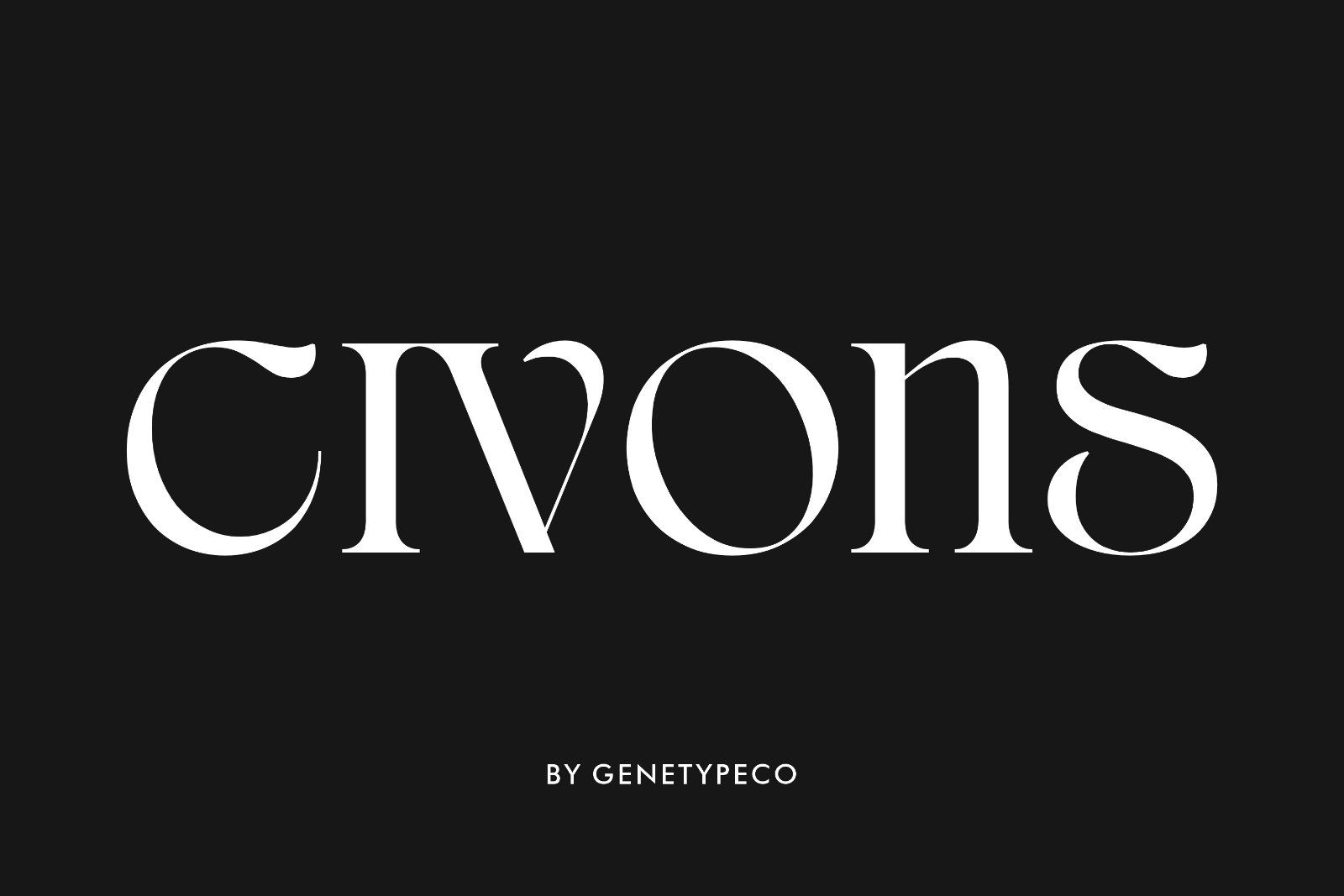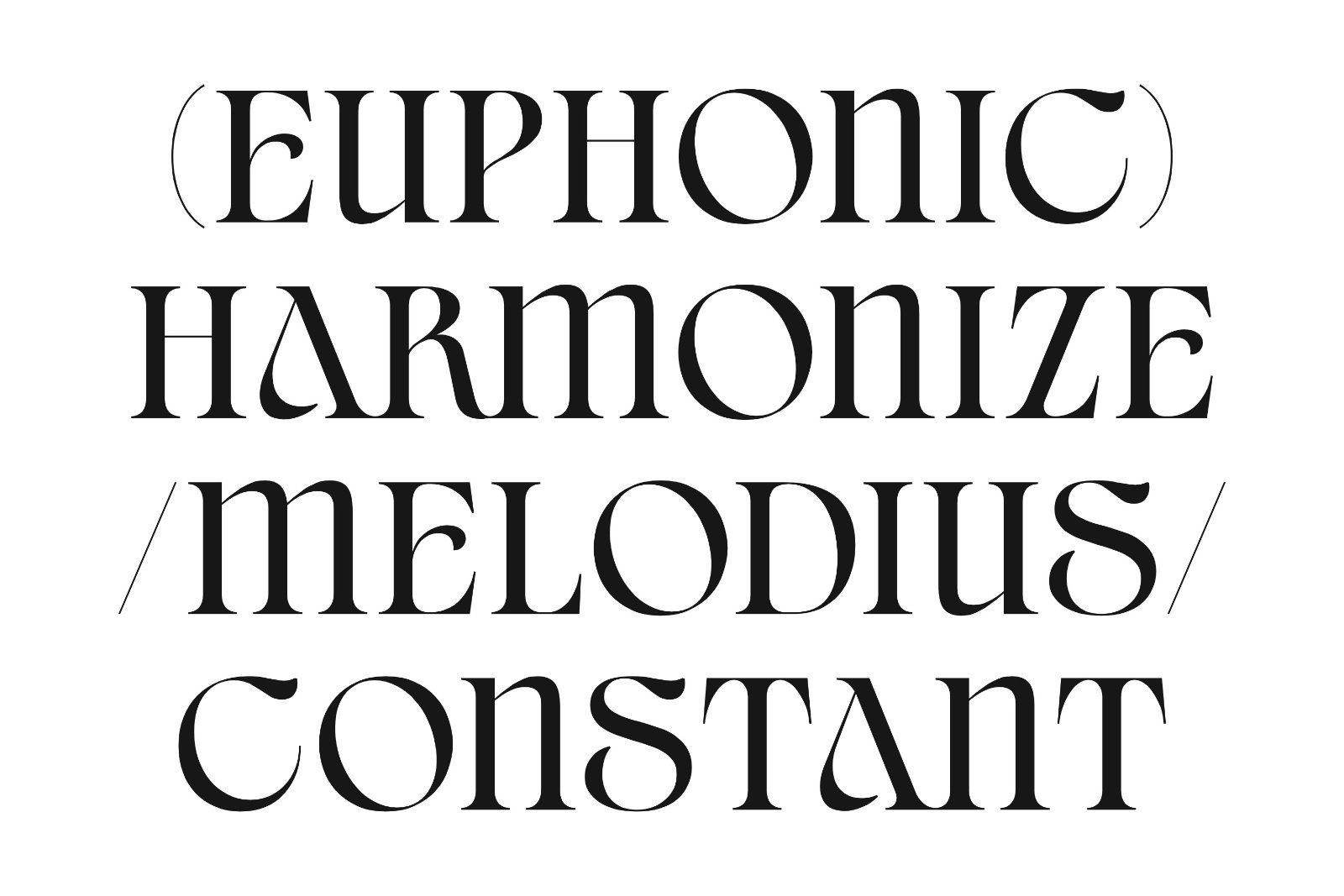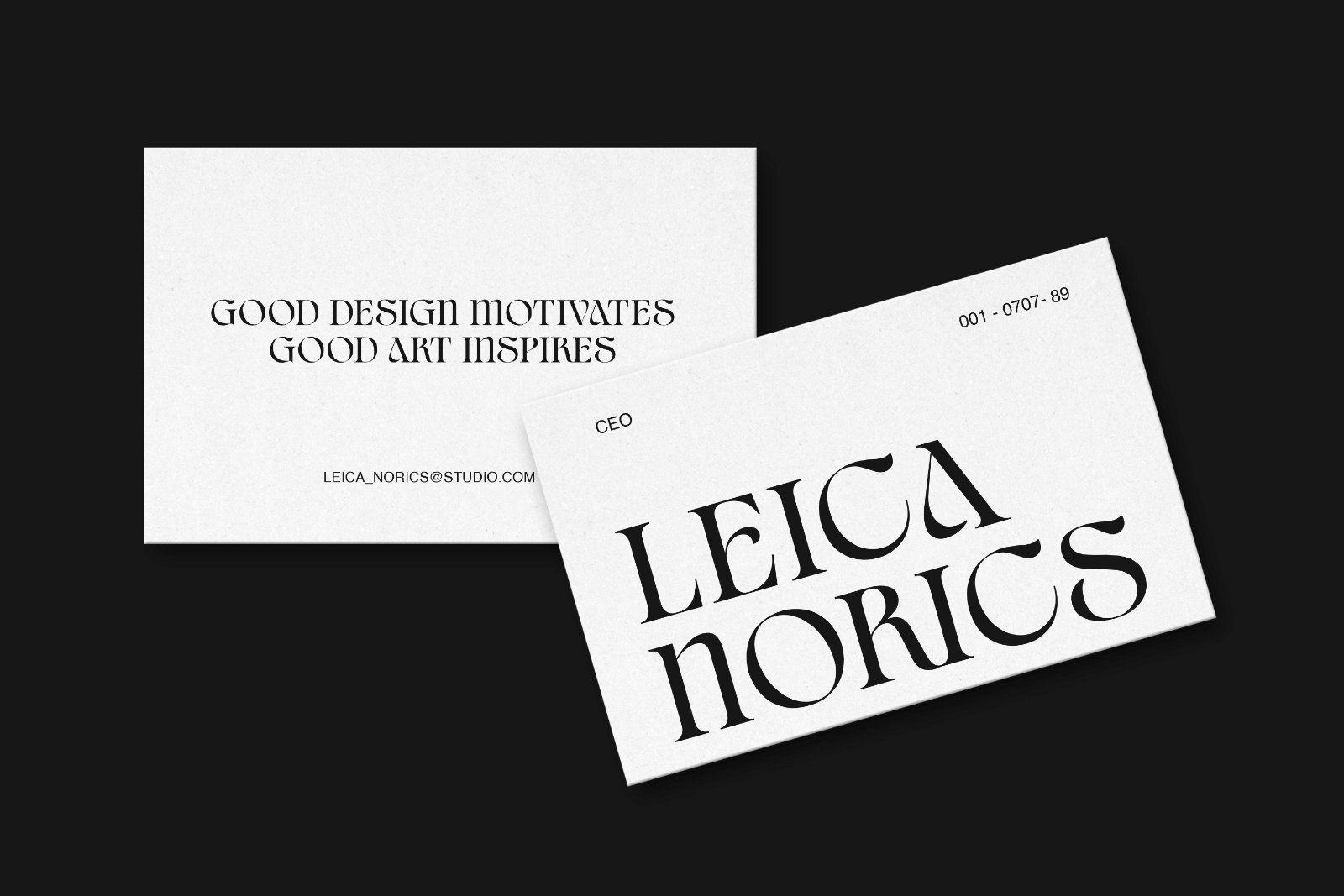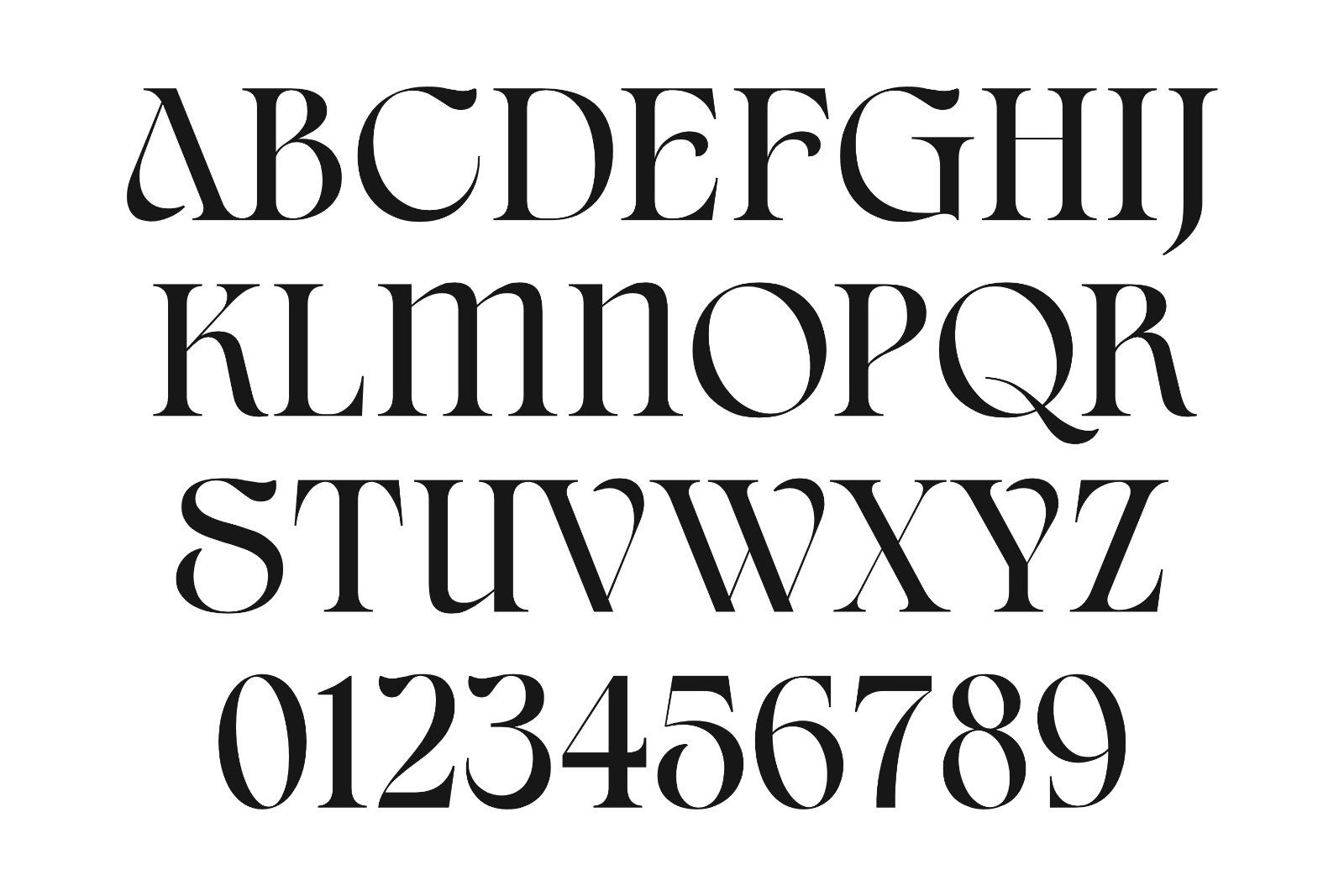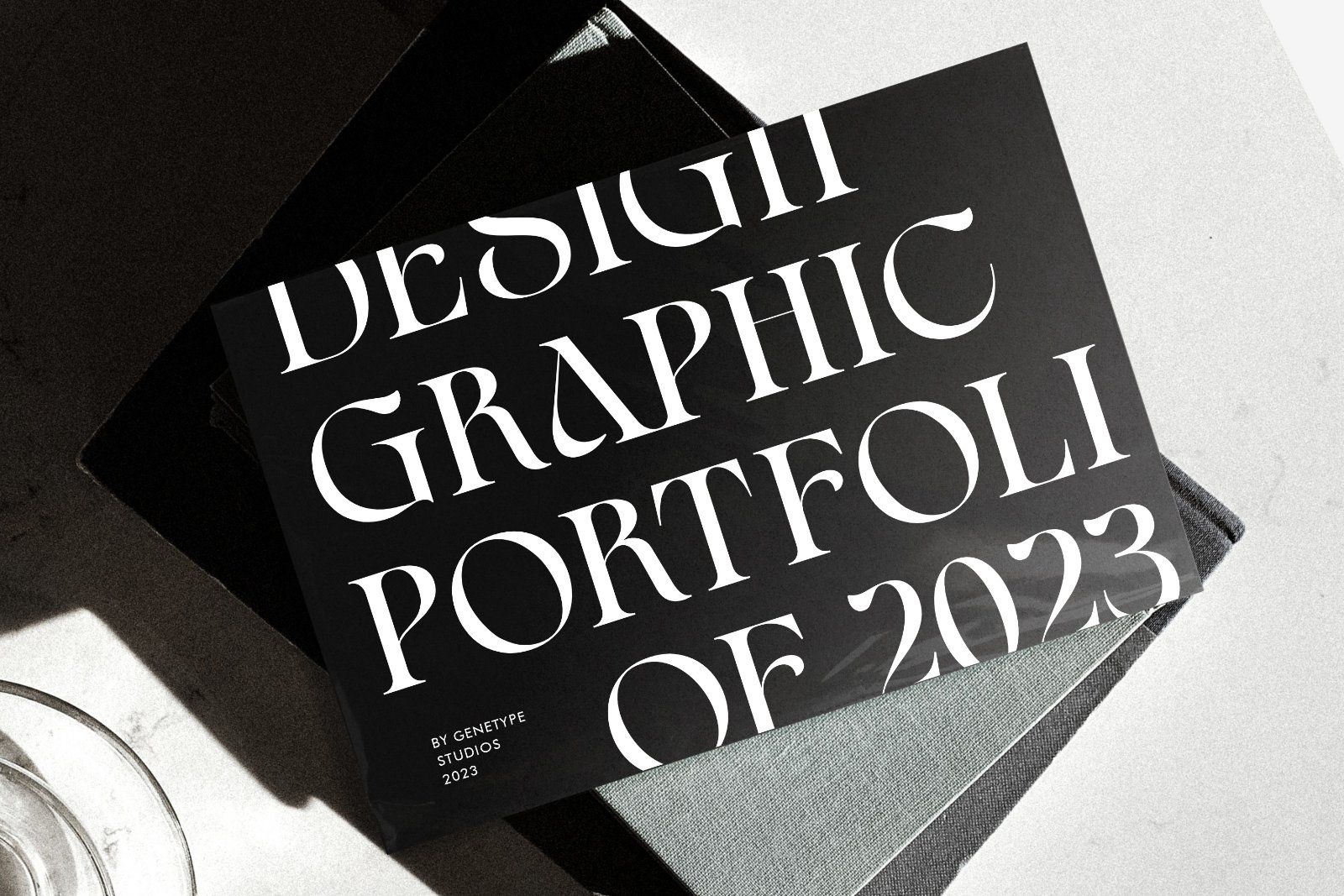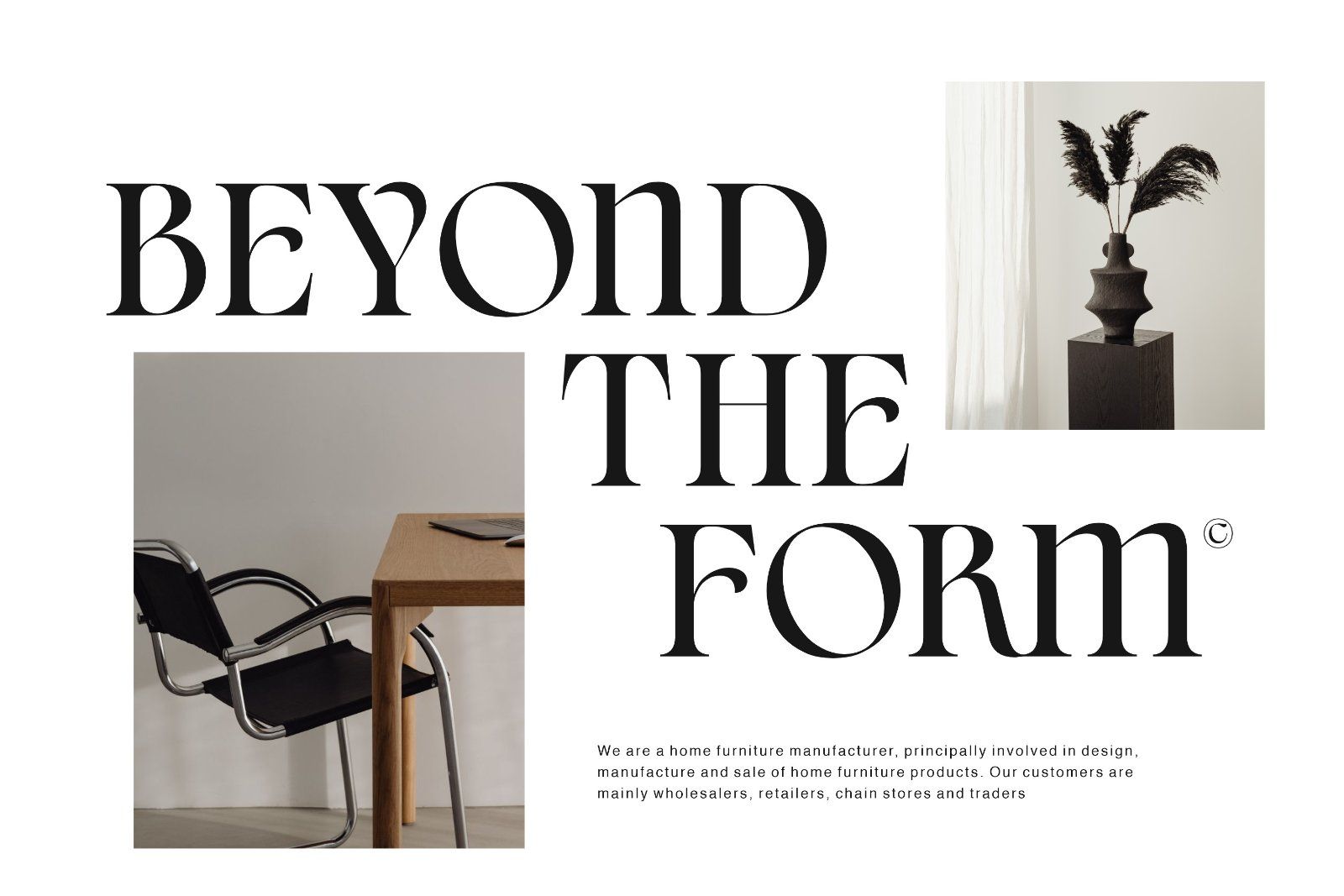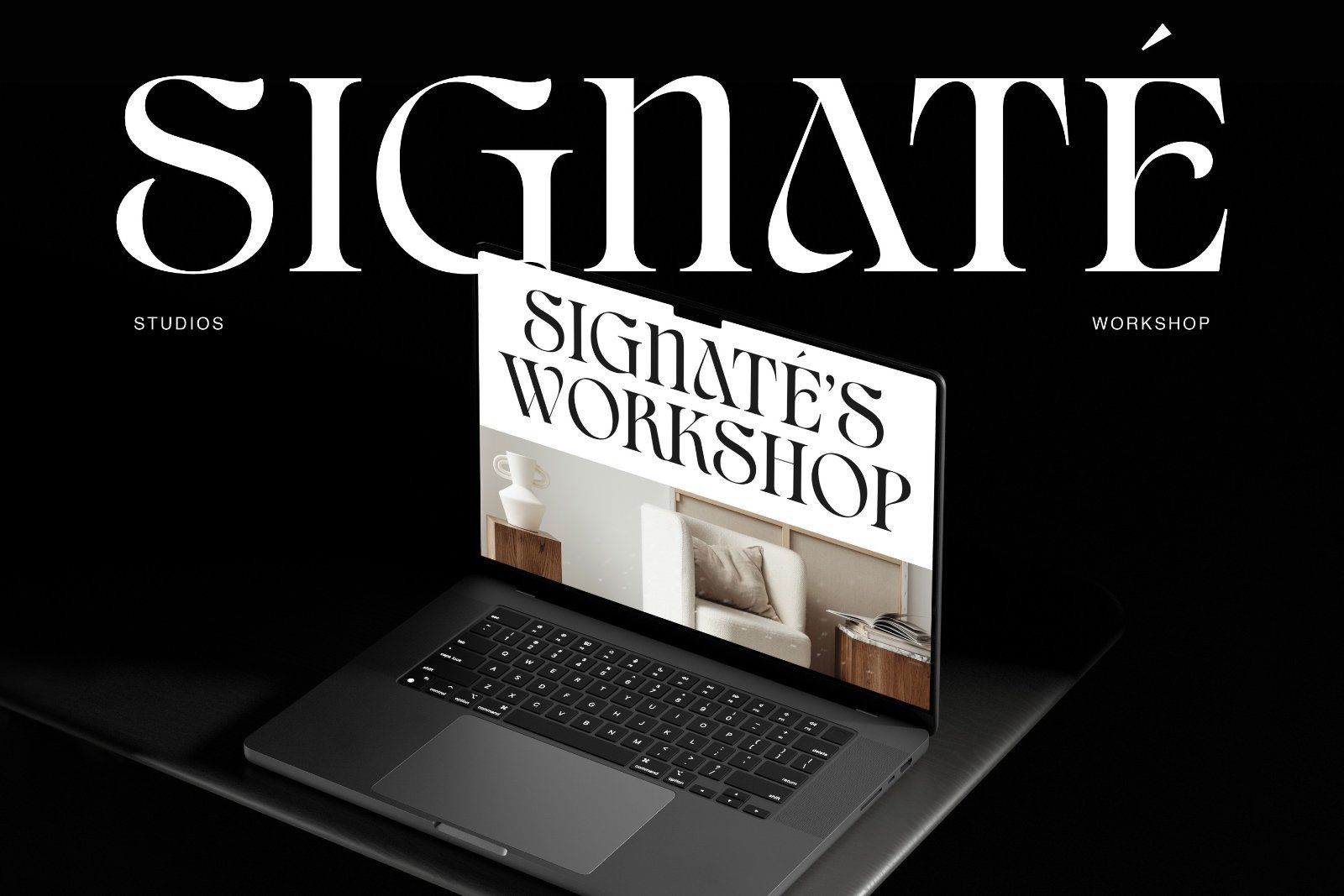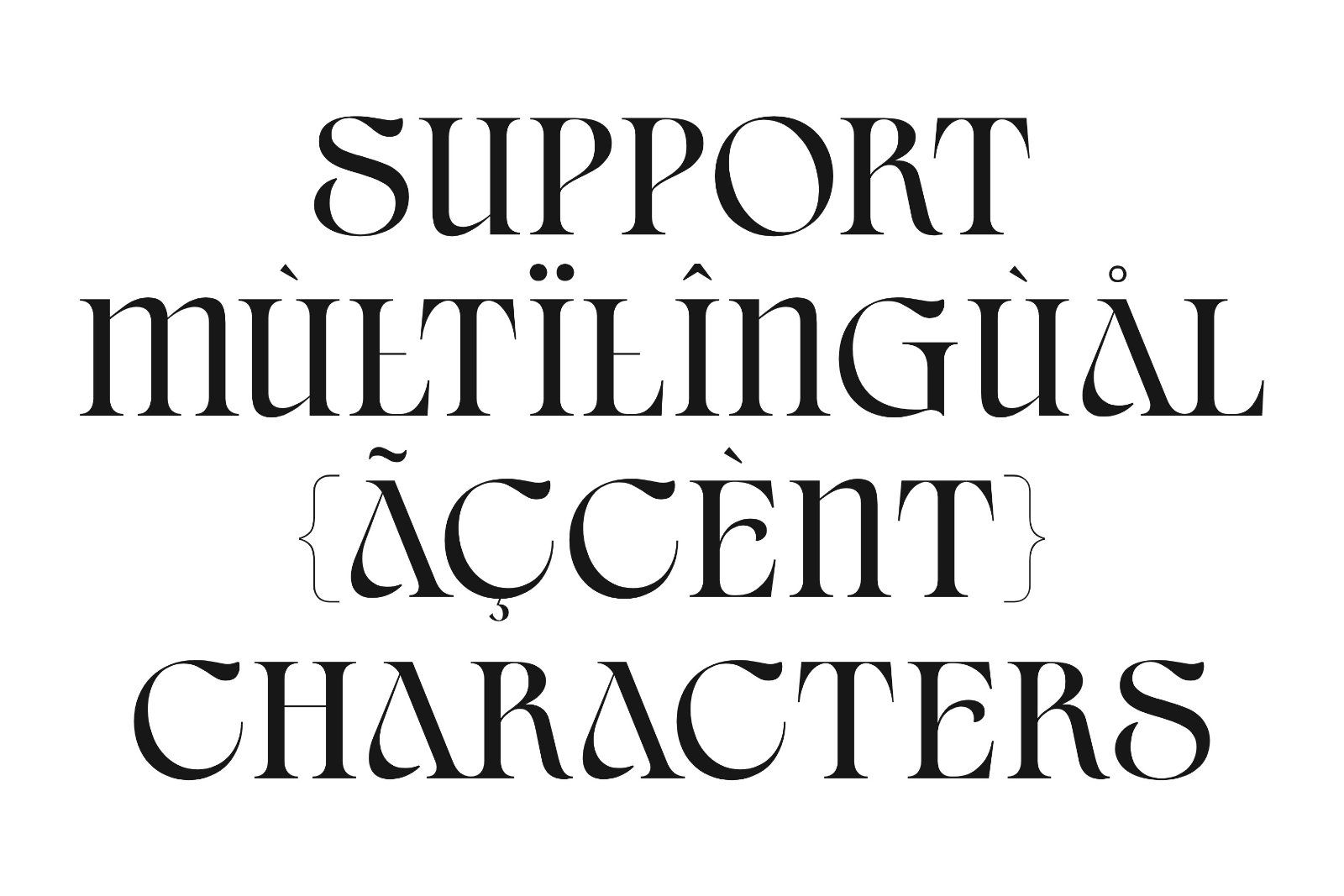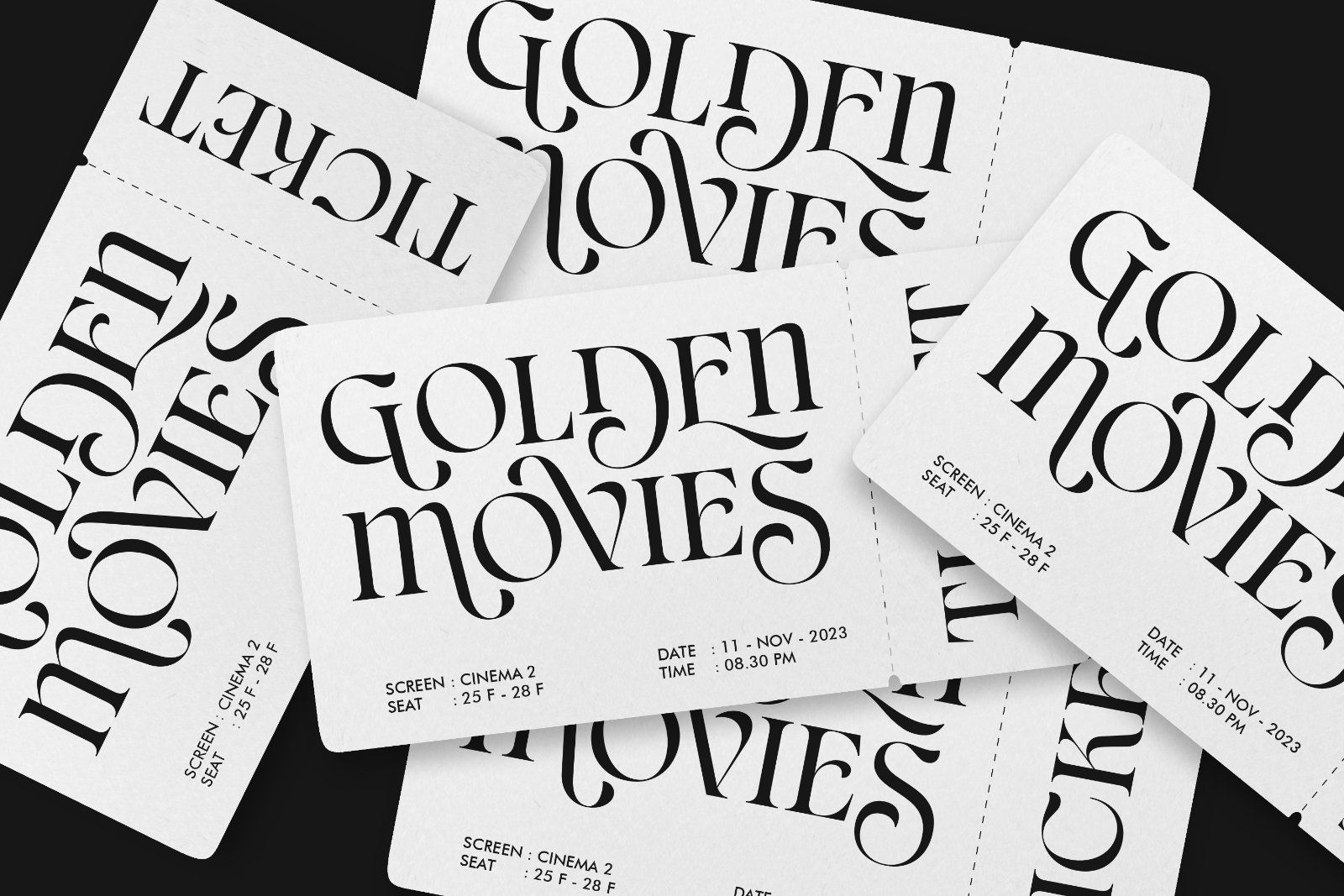
Introducing Civons Serif display font—a perfect fusion of classic charm and modern allure. Ideal for branding and editorial projects, it effortlessly combines traditional serifs with a contemporary touch, radiating sophistication and uniqueness. Elevate your creativity with this timeless yet fresh typeface, where every character speaks of refined design.